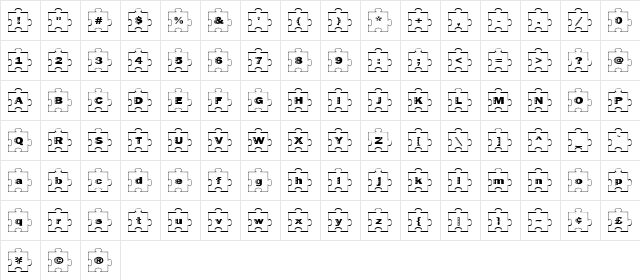
Failed Font 2 Jigsaw
| Style | Jigsaw |
Design Context for Failed Font 2 Typeface
Failed Font 2 is a composed and adaptable typeface that performs quietly and consistently across a wide range of design contexts.